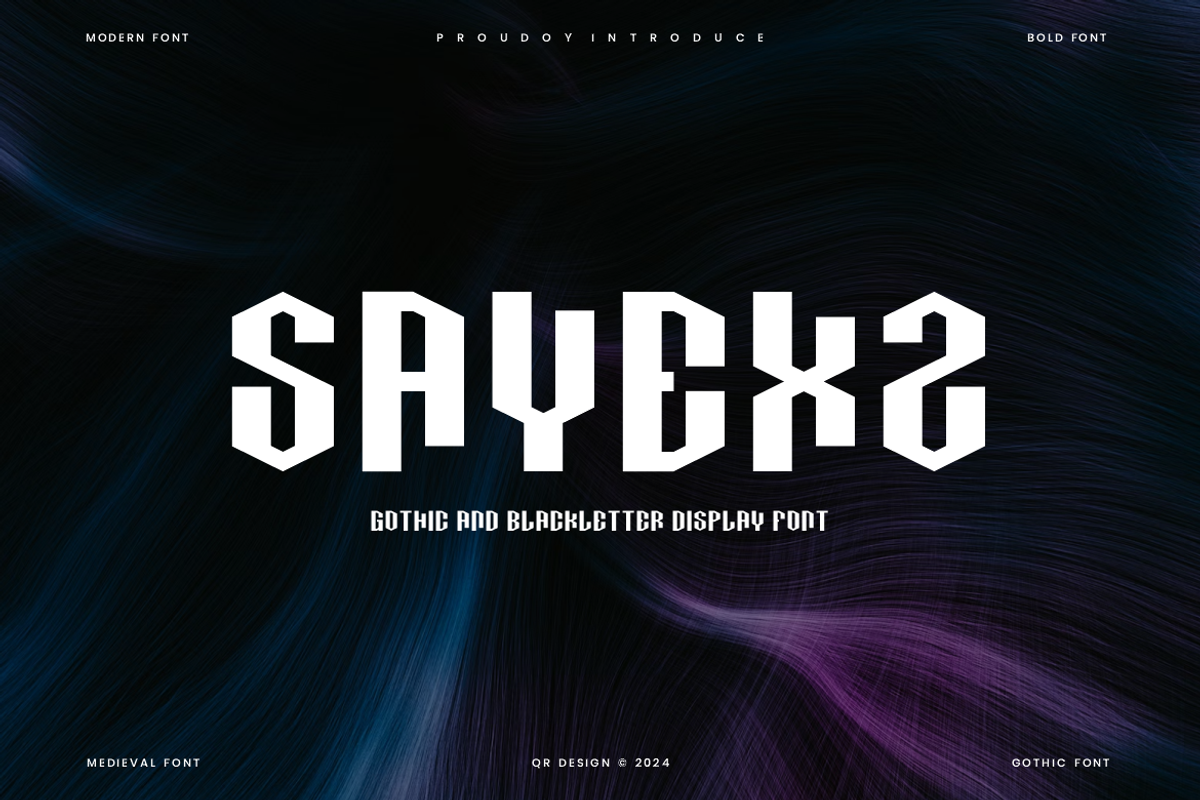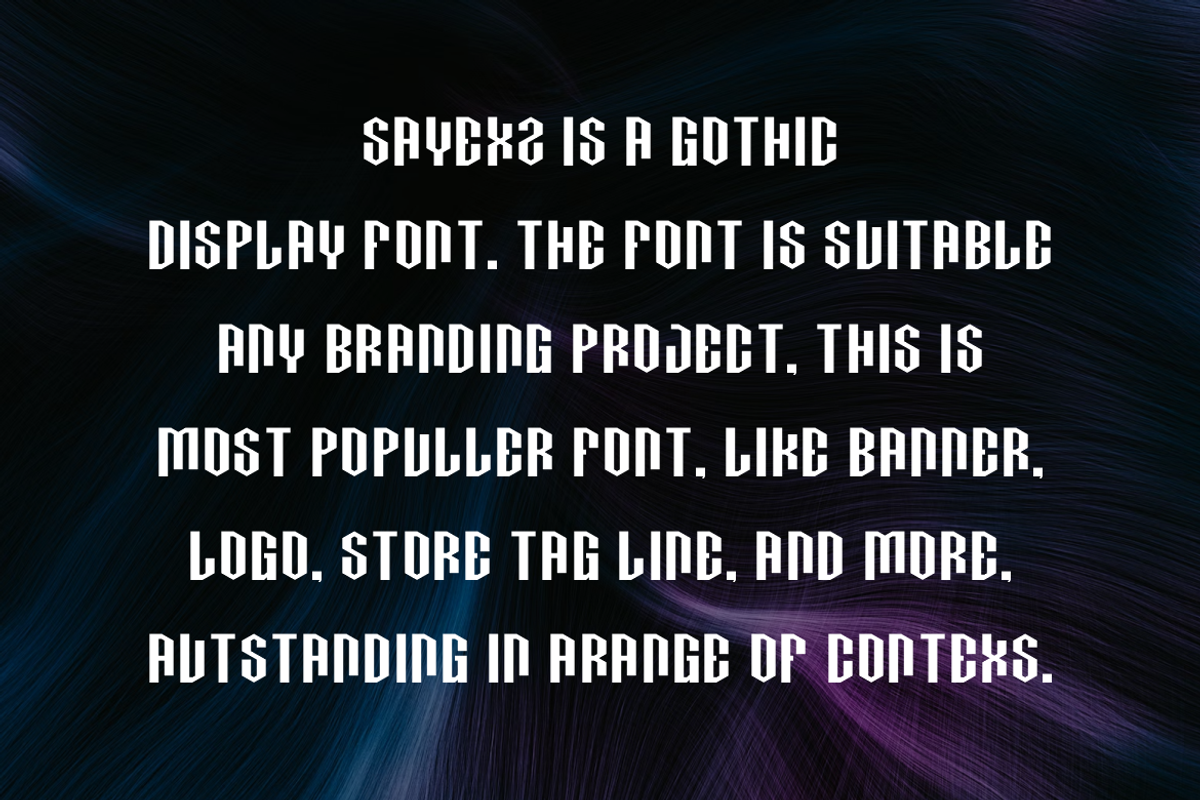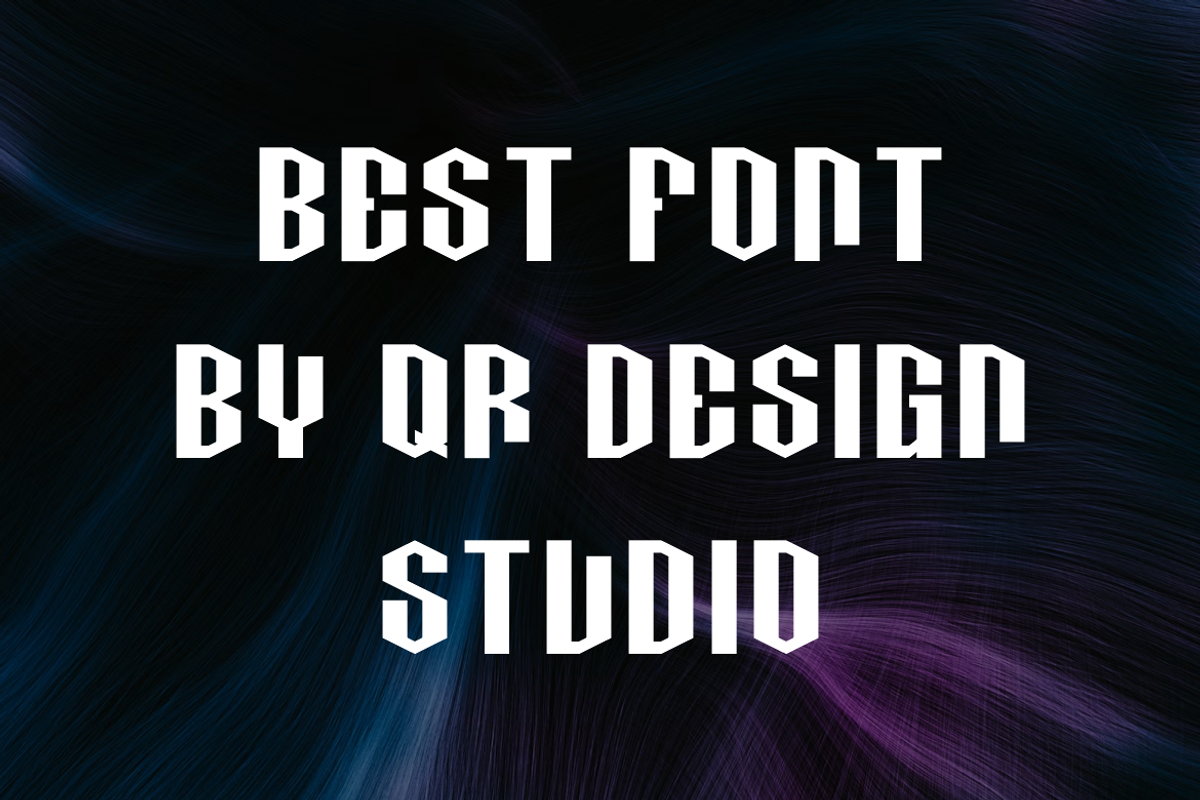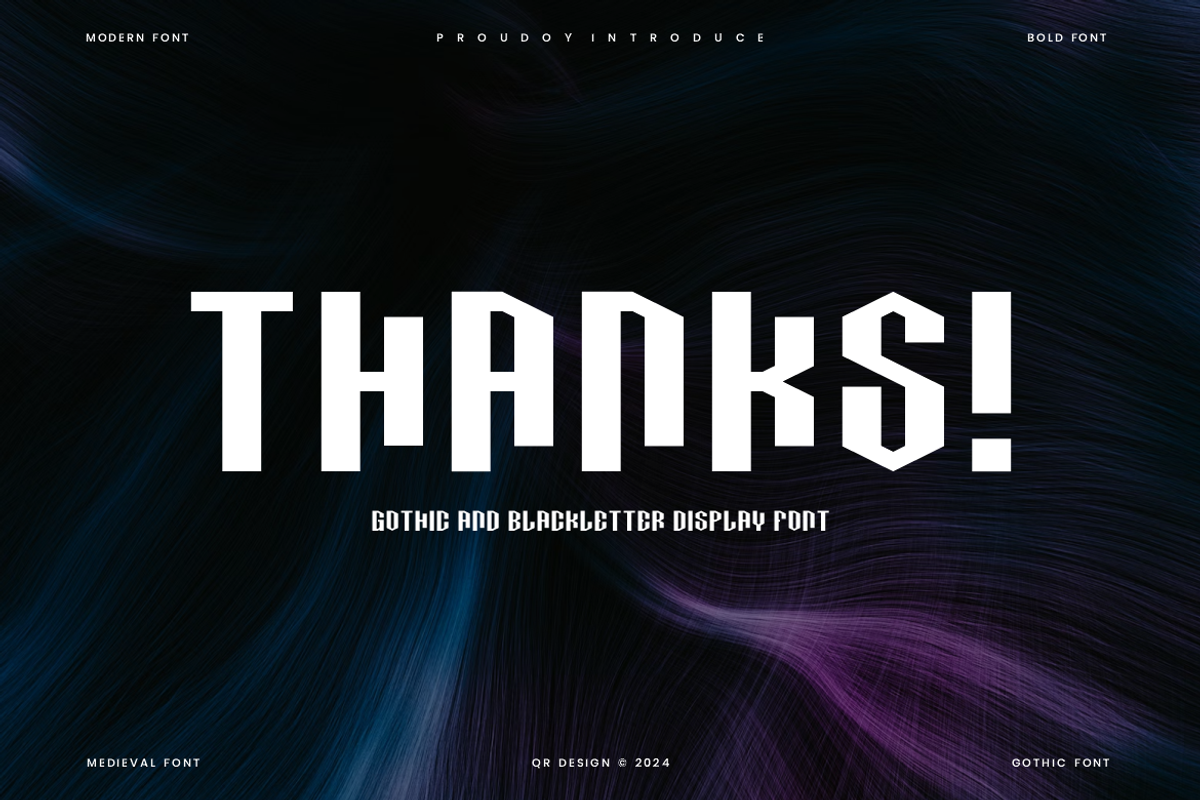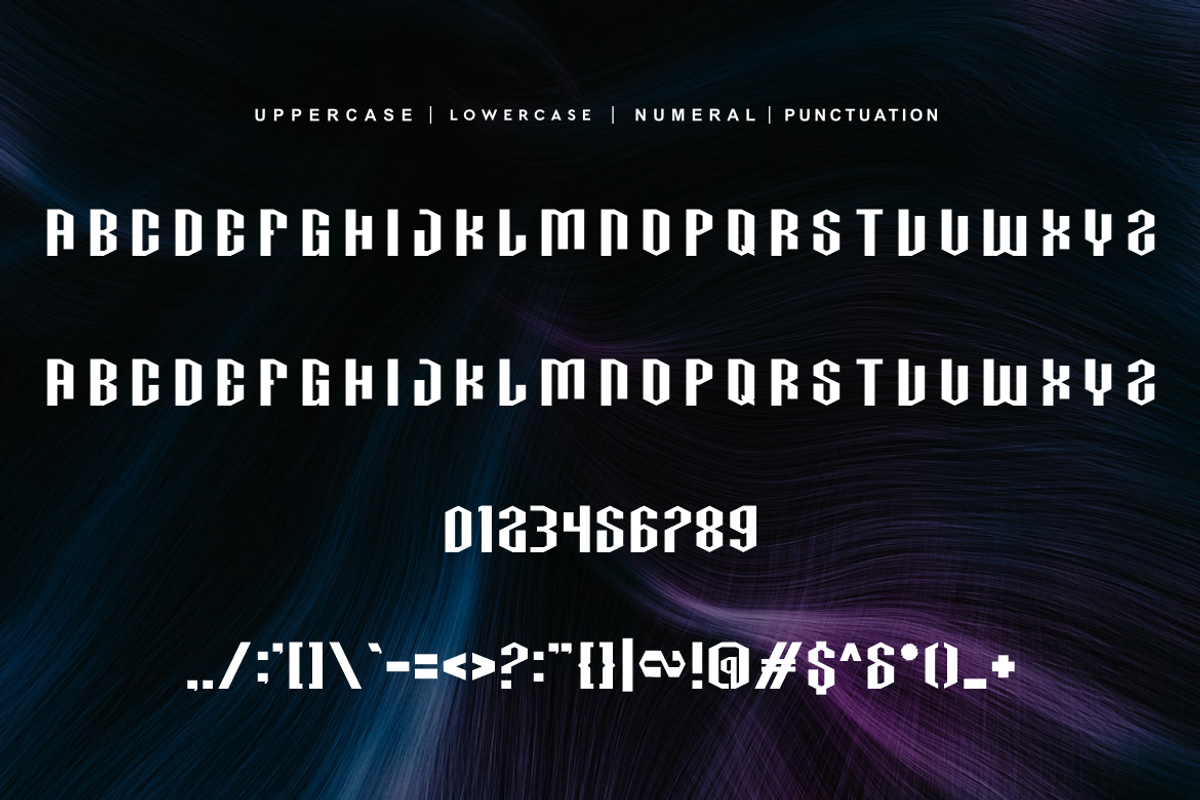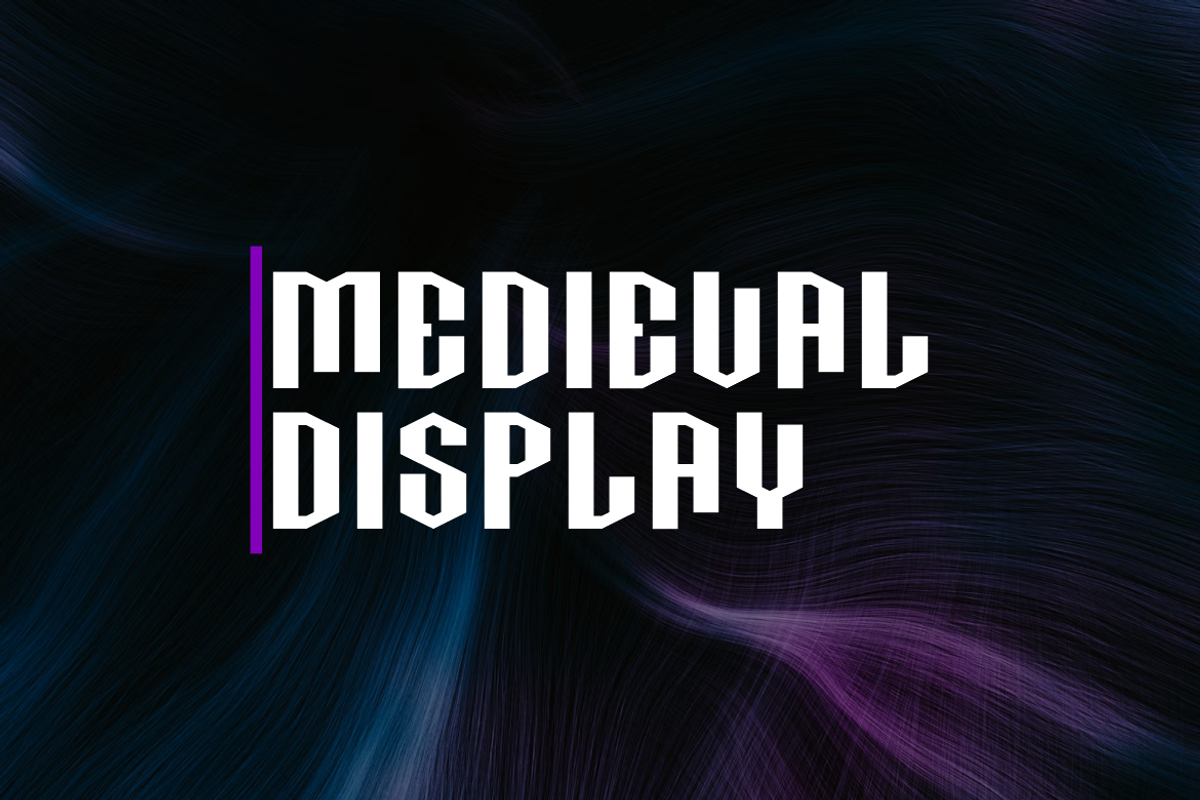
Sayexz - Gothic Display Font
Sayexz - Gothic Font is a bold and authentic display font. The font is suitable for any branding project like poster, logo, sport, and many more. Outstanding in a wide range of contexts.